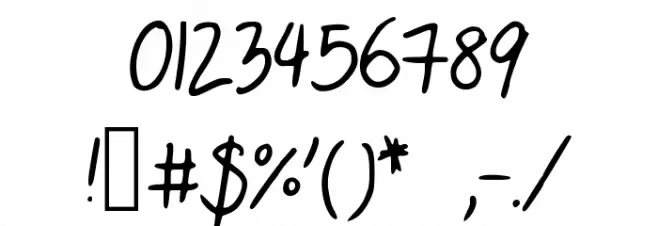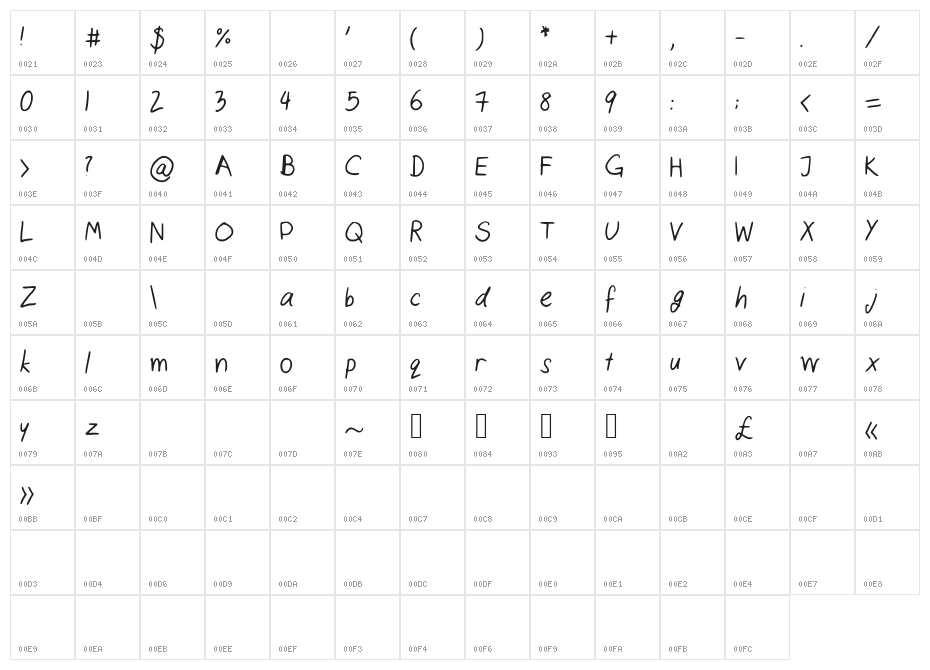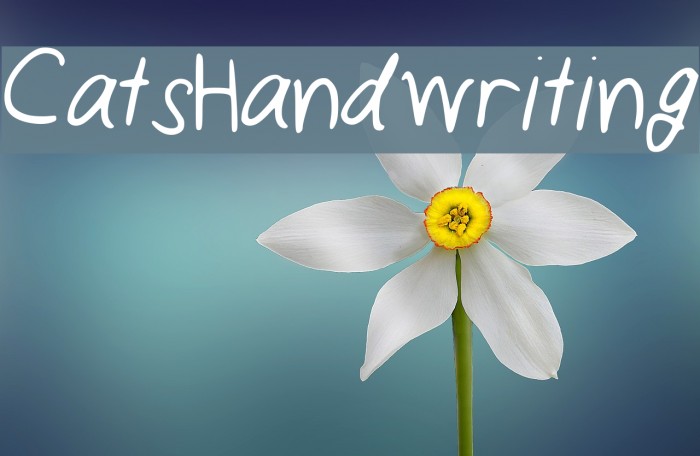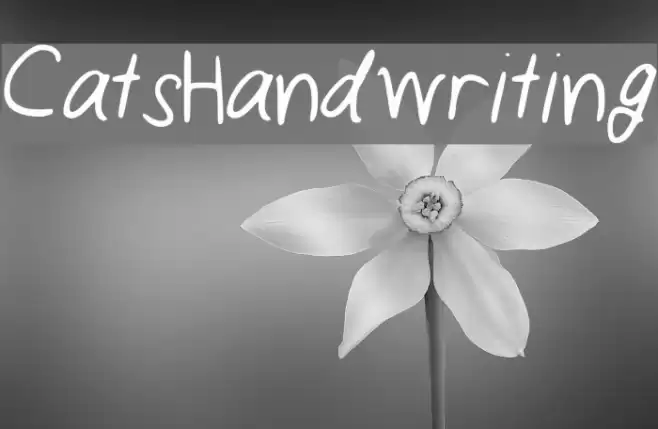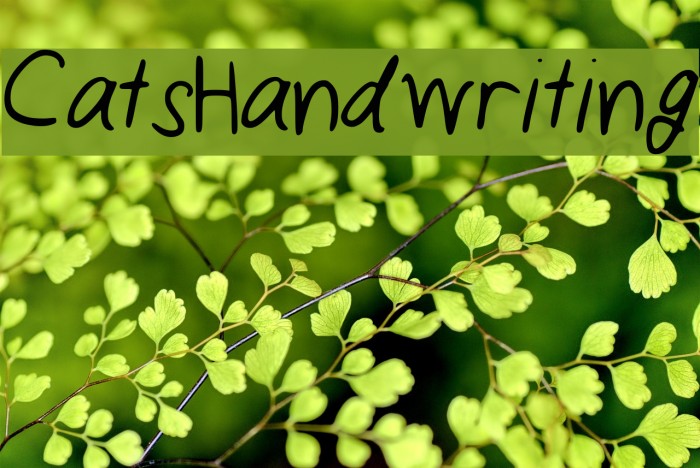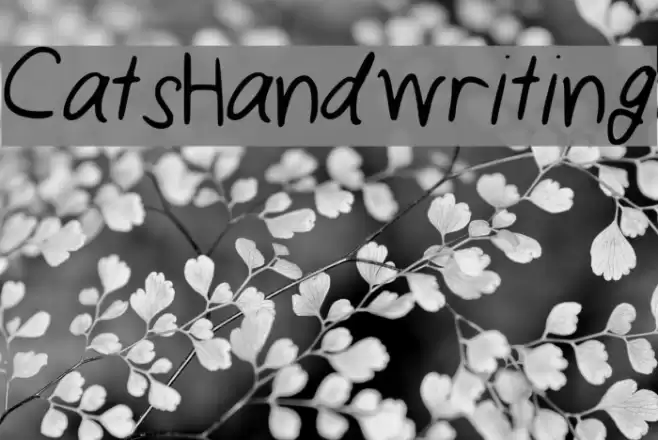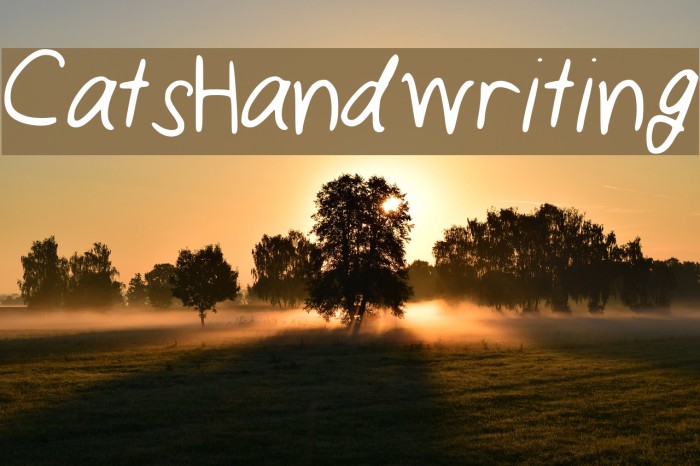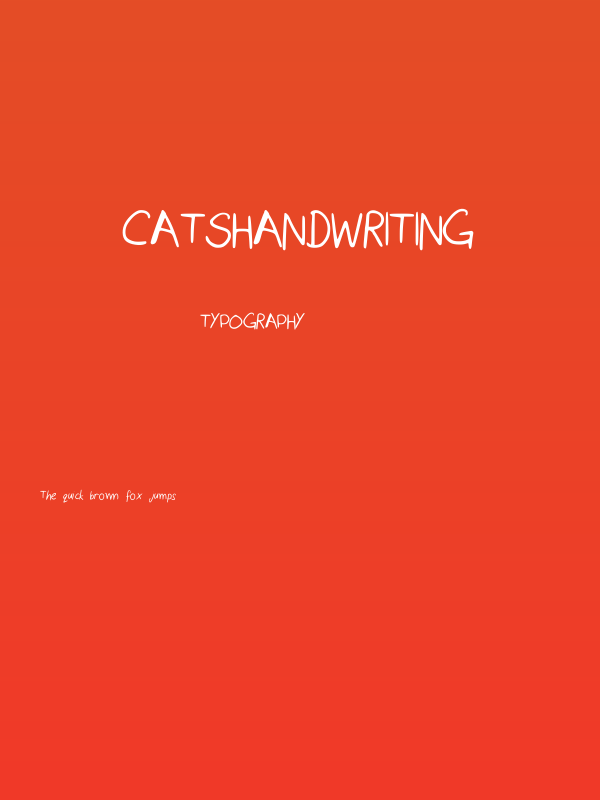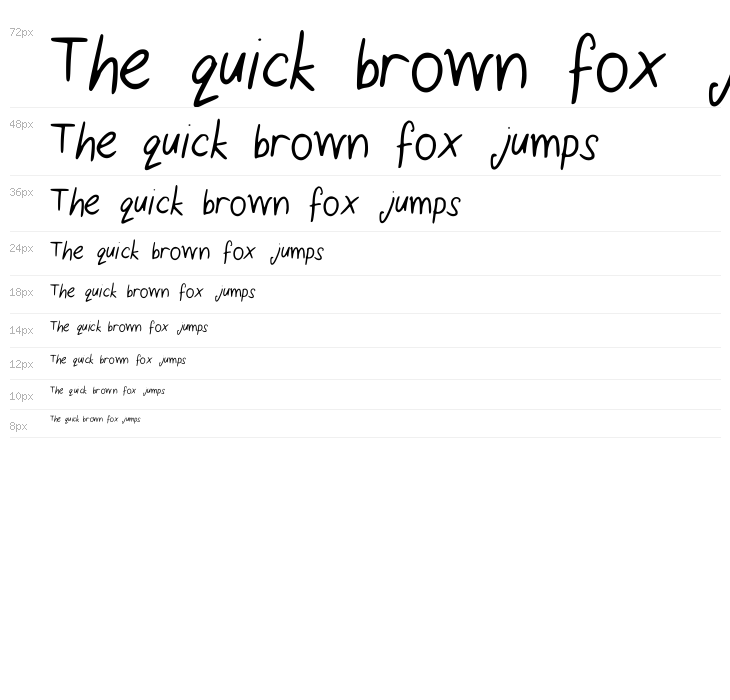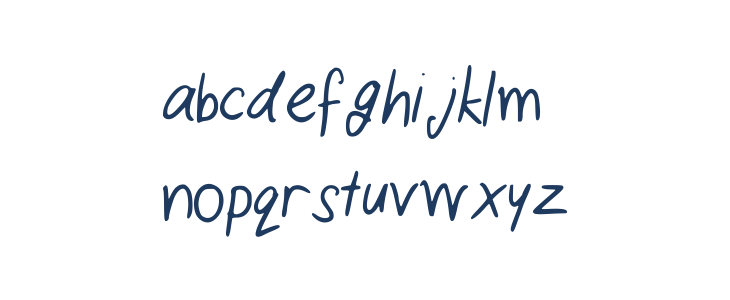
CatsHandwriting Font
CatsHandwriting Description
This playful and whimsical font captures the essence of casual handwriting with its uneven strokes and slightly tilted characters. The letters are bold and rounded, giving a friendly and approachable feel. The uppercase and lowercase letters maintain a consistent style, with a slight slant that adds to the handwritten charm. The numbers and special characters follow the same playful design, ensuring a cohesive look across all text. This font is perfect for projects that require a personal touch, such as greeting cards, invitations, or children's book illustrations.
Overall StylePlayful, Casual
Use CaseHeadlines, Informal text, Creative projects
Proposed ProjectsIdeal for greeting cards, invitations, children's books, and casual branding.